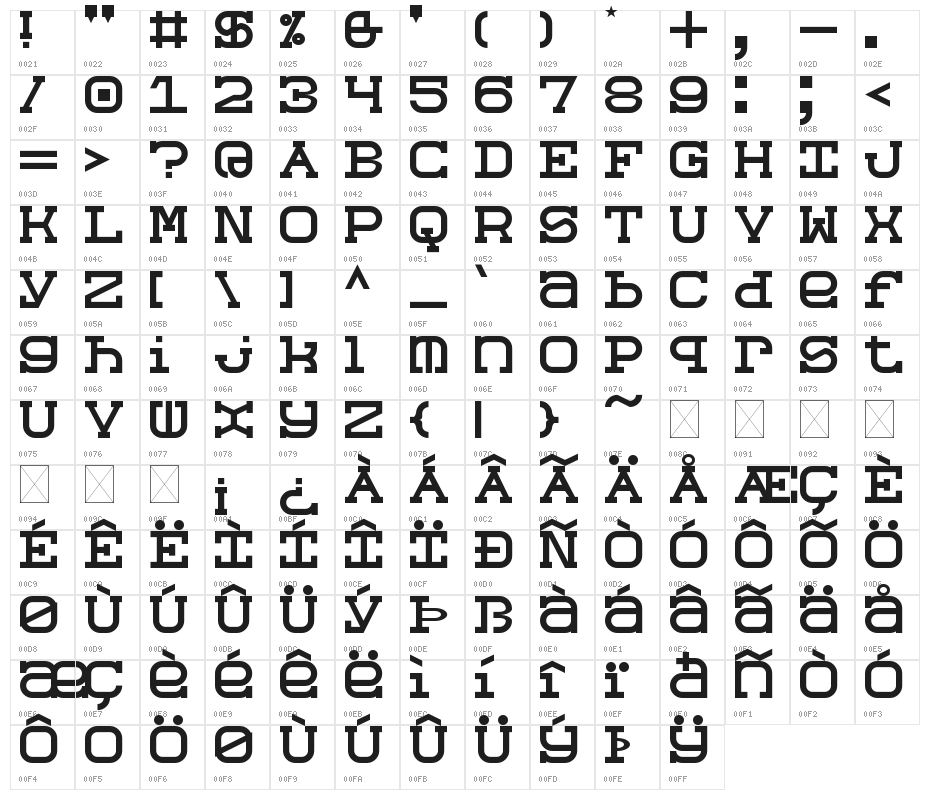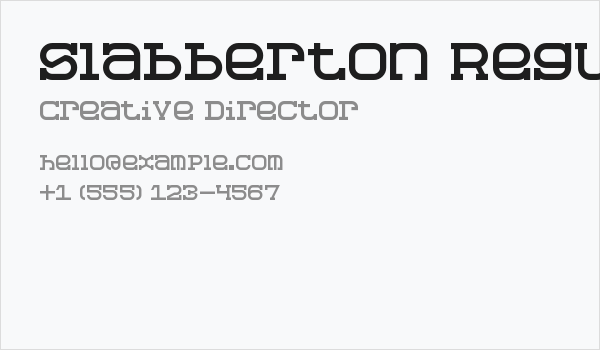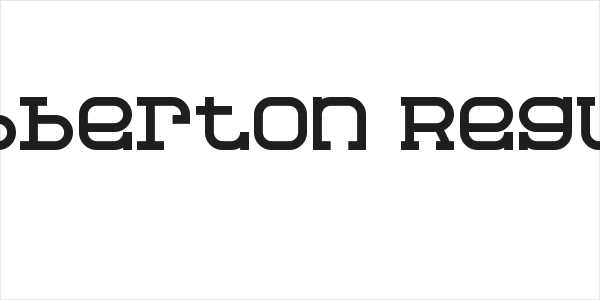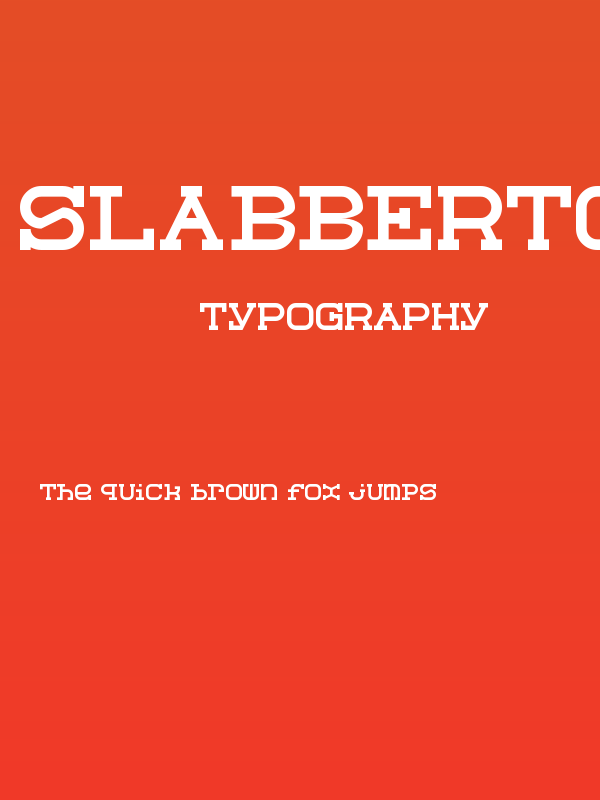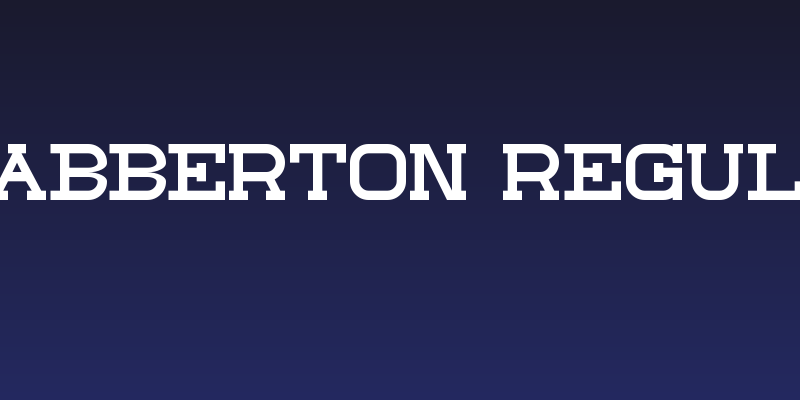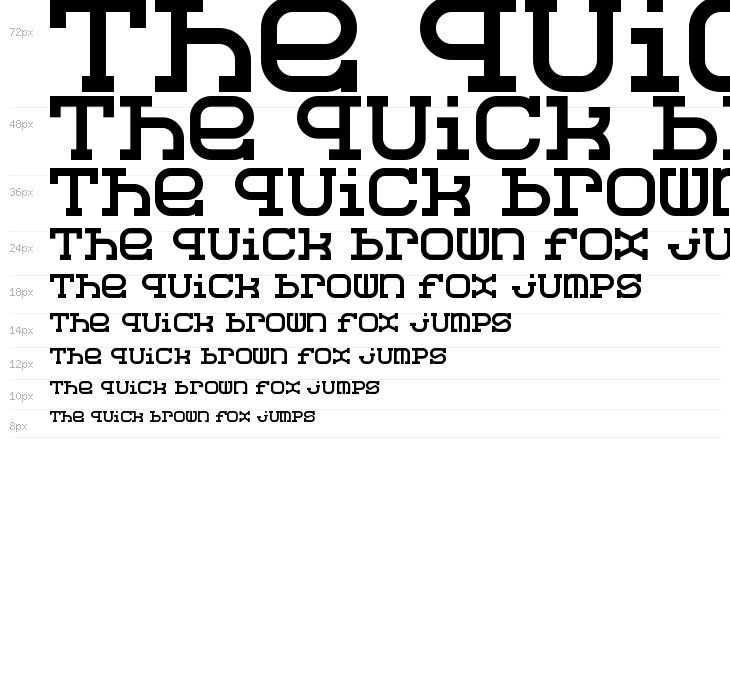
Slabberton Regular Font
Slabberton Regular Description
This font features a bold and striking slab serif style with strong geometric shapes and thick, block-like serifs. The uppercase letters are uniform in height, creating a cohesive and structured appearance. The lowercase letters maintain a similar weight, with rounded edges that contrast with the angular serifs. Numbers are equally bold, ensuring readability and impact. The special characters are designed to match the overall robust aesthetic, making them suitable for attention-grabbing designs.